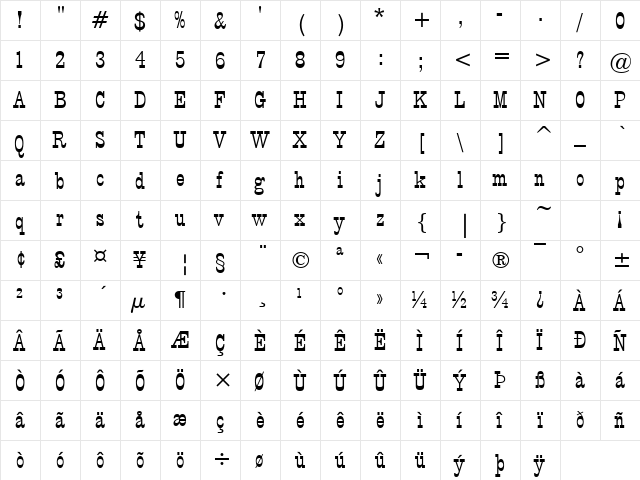
Wrangler Regular Font Preview
Wrangler Regular
Wrangler Regular Font Details
Design Context for Wrangler Typeface
Wrangler offers clean, dependable letterforms without strong stylistic allegiance, making it a practical choice for designers who need flexibility.
Pro Tip: Use Wrangler in both headline and body roles to test its range before committing to a single application.